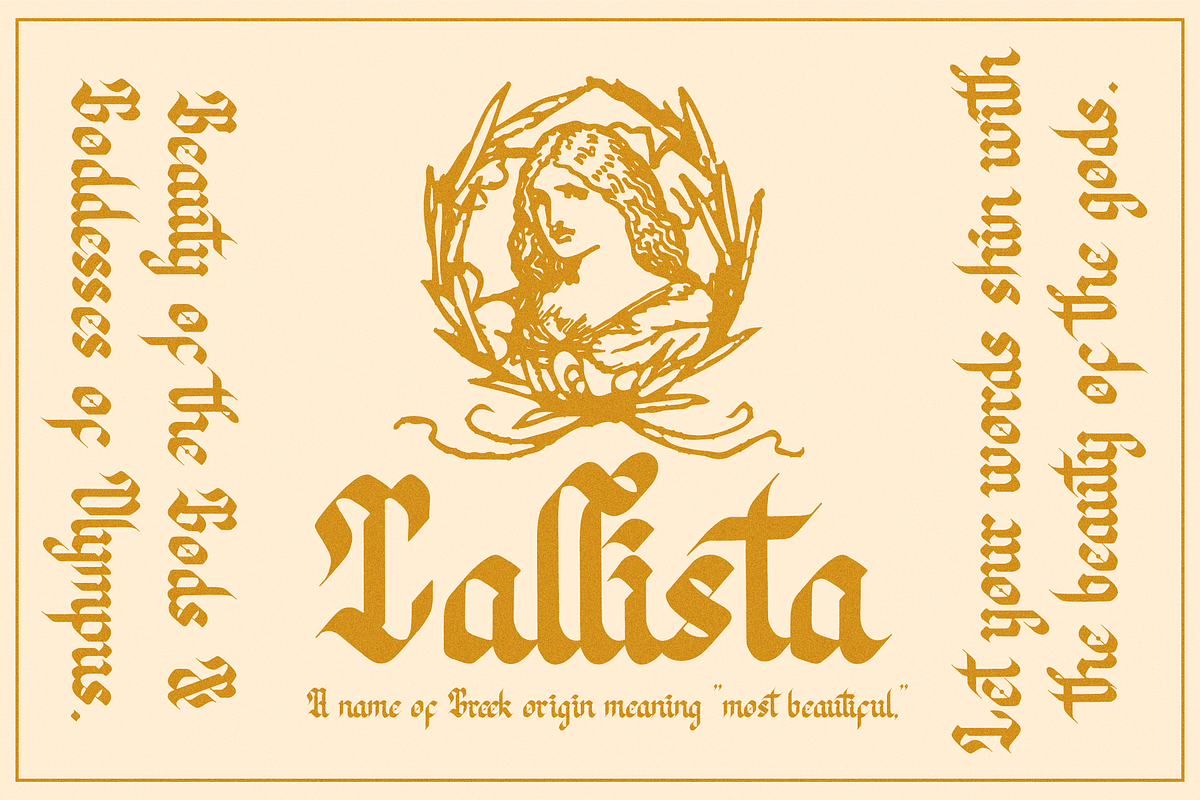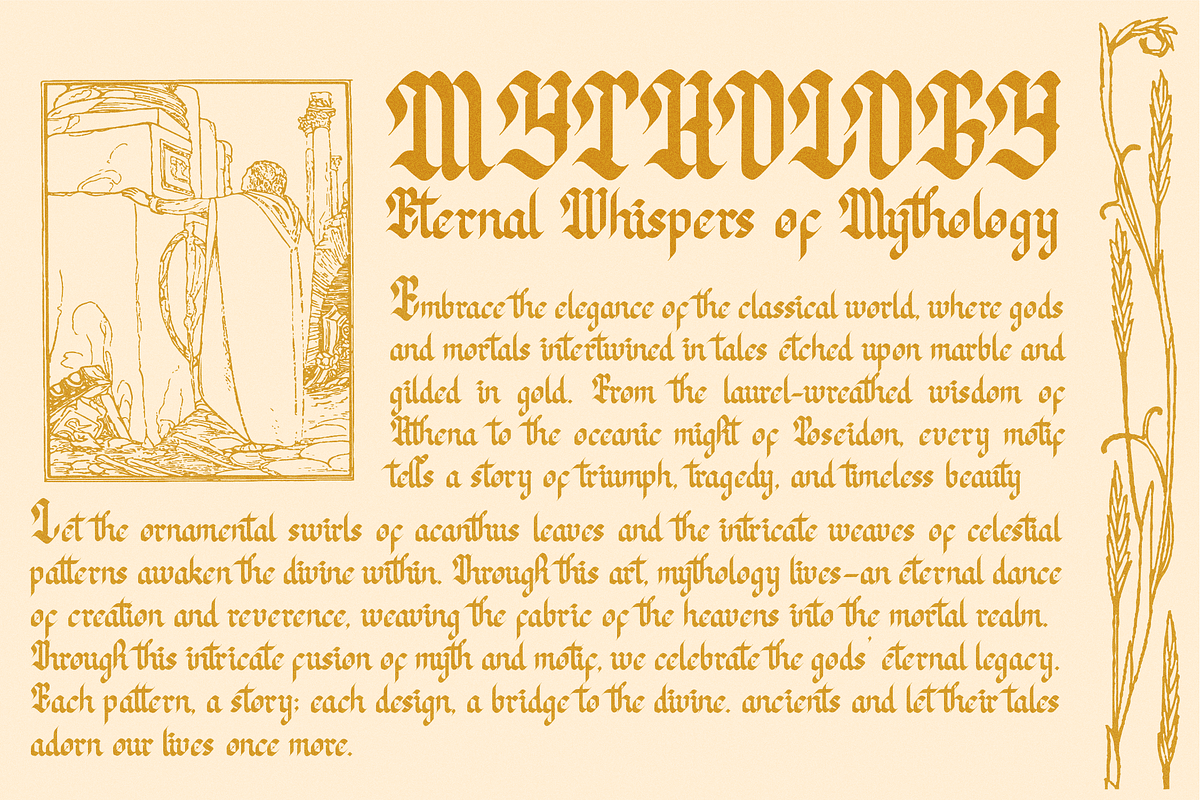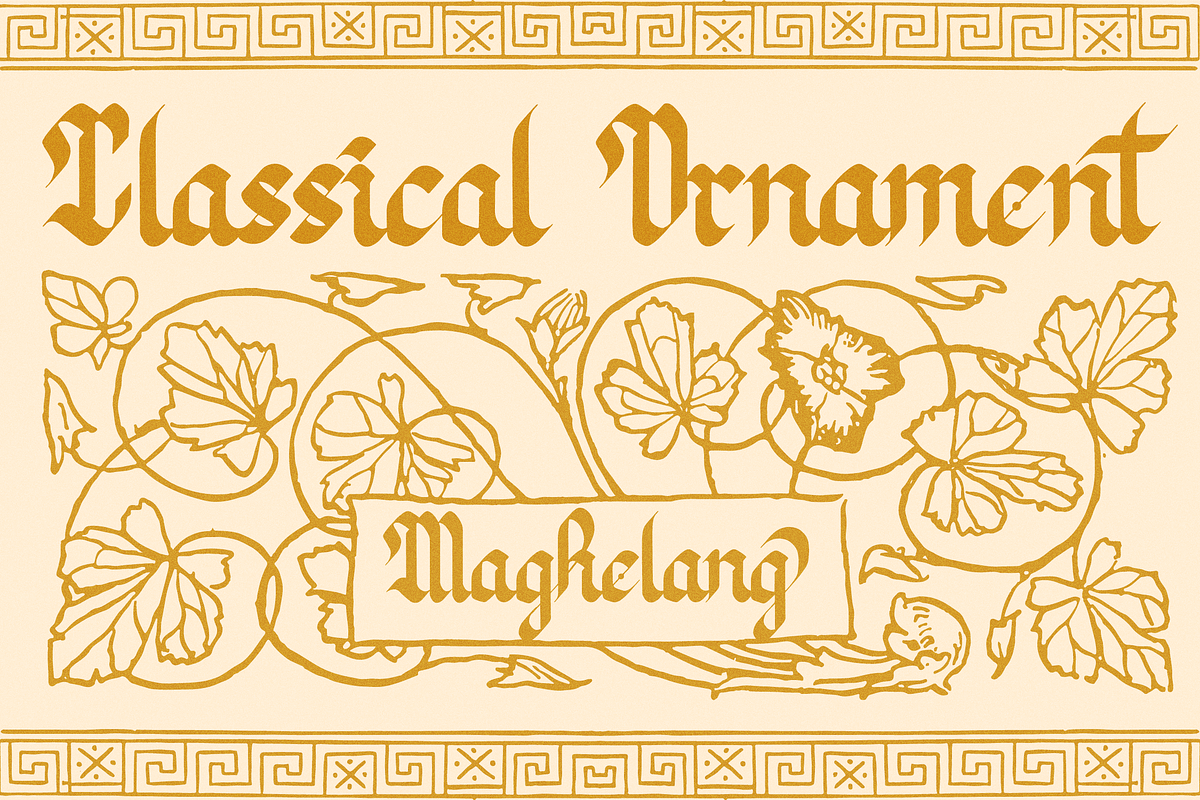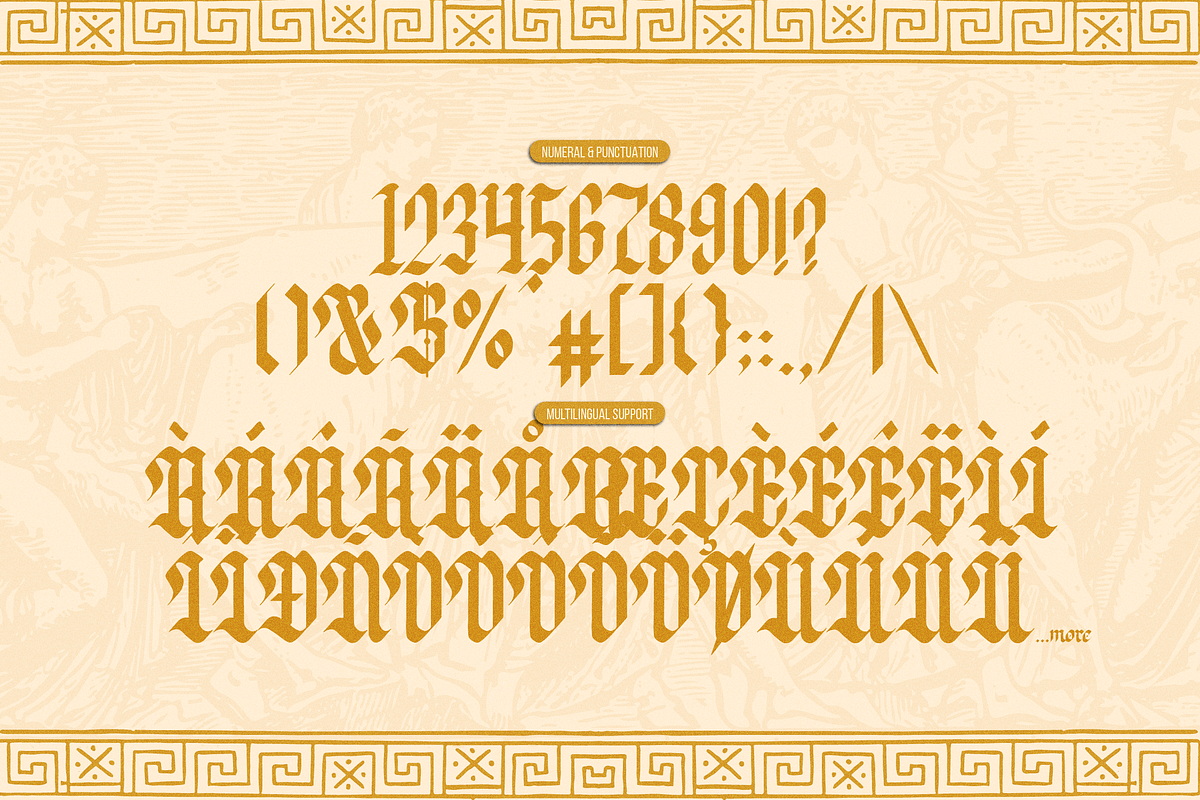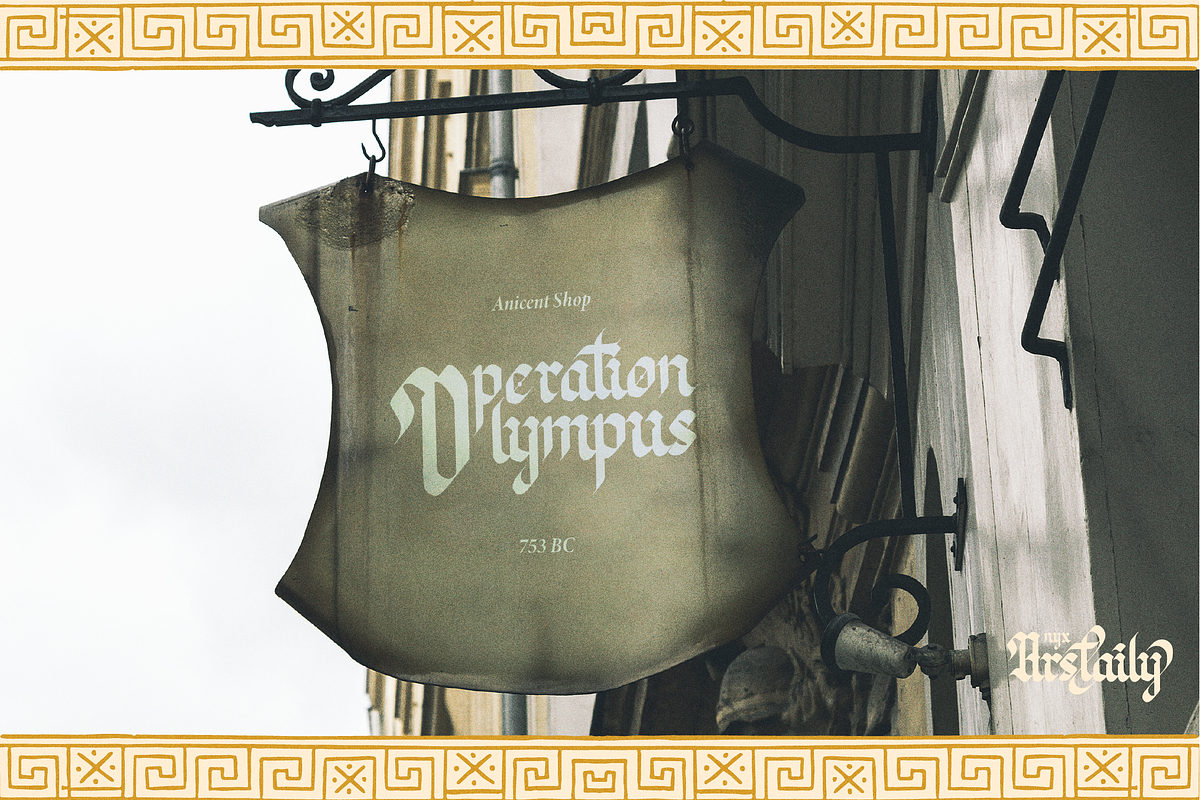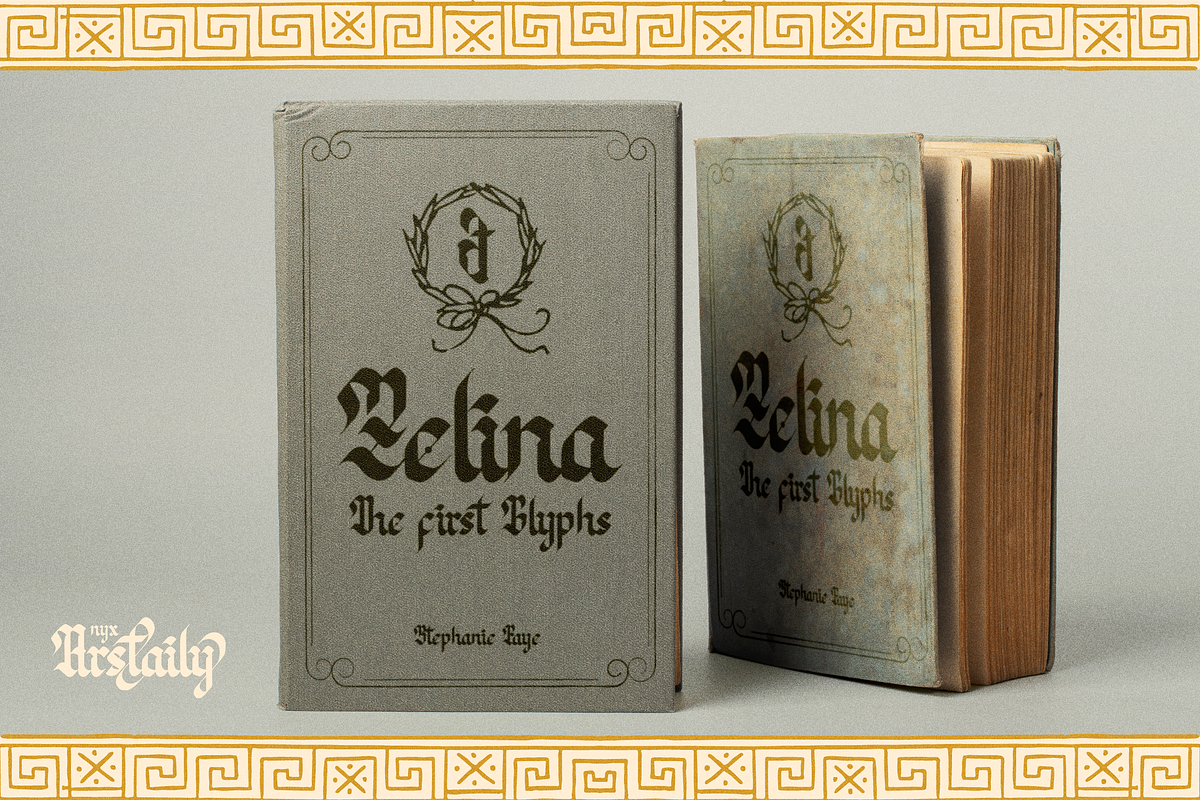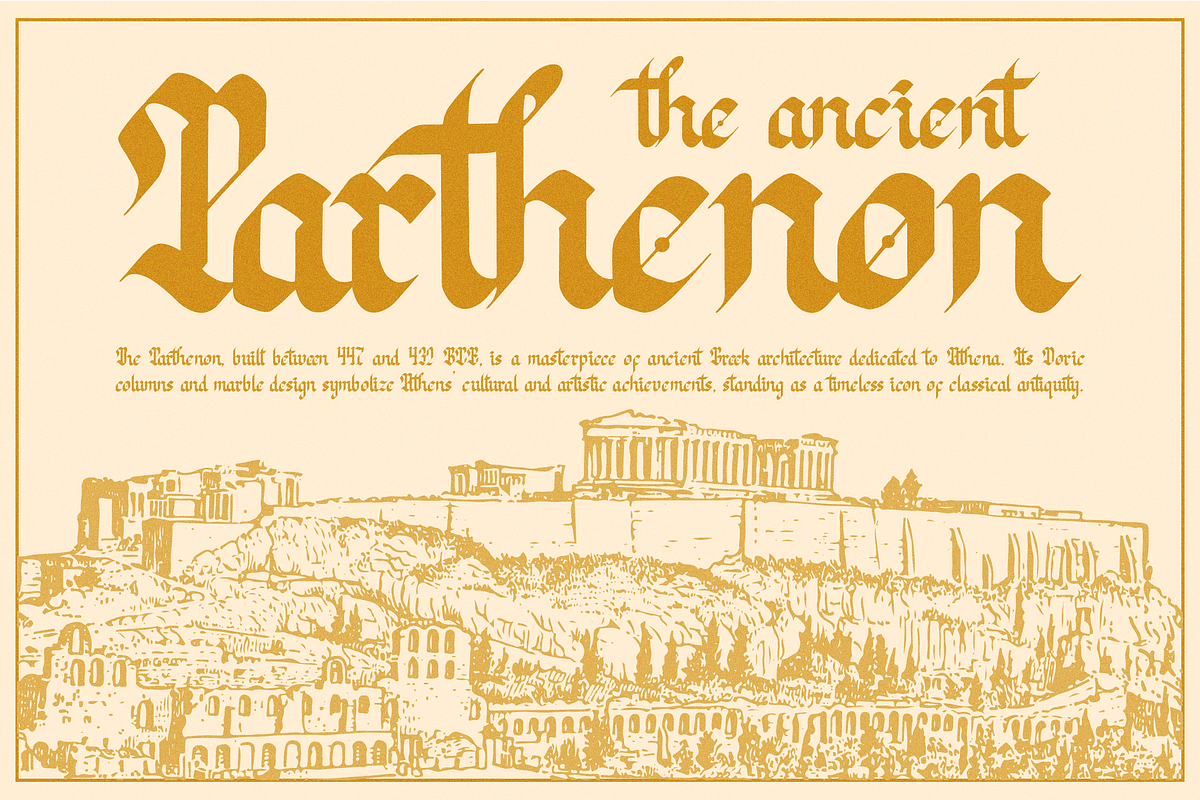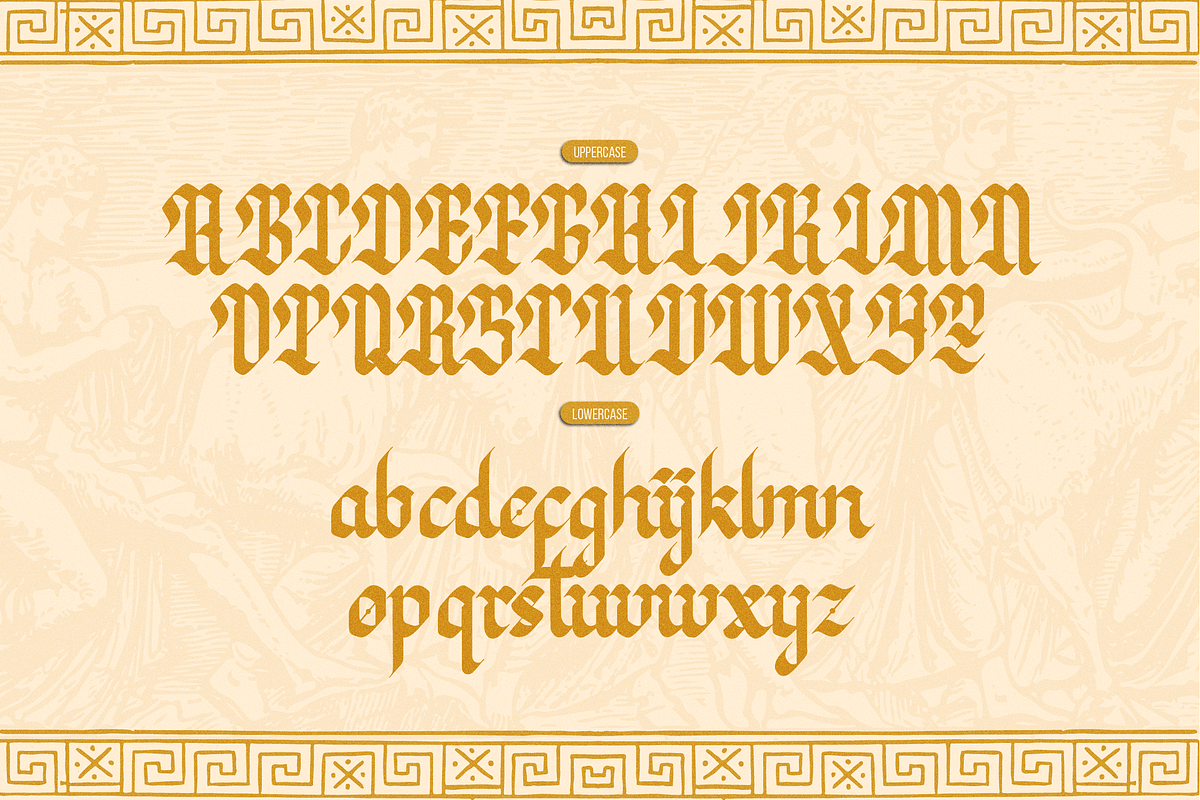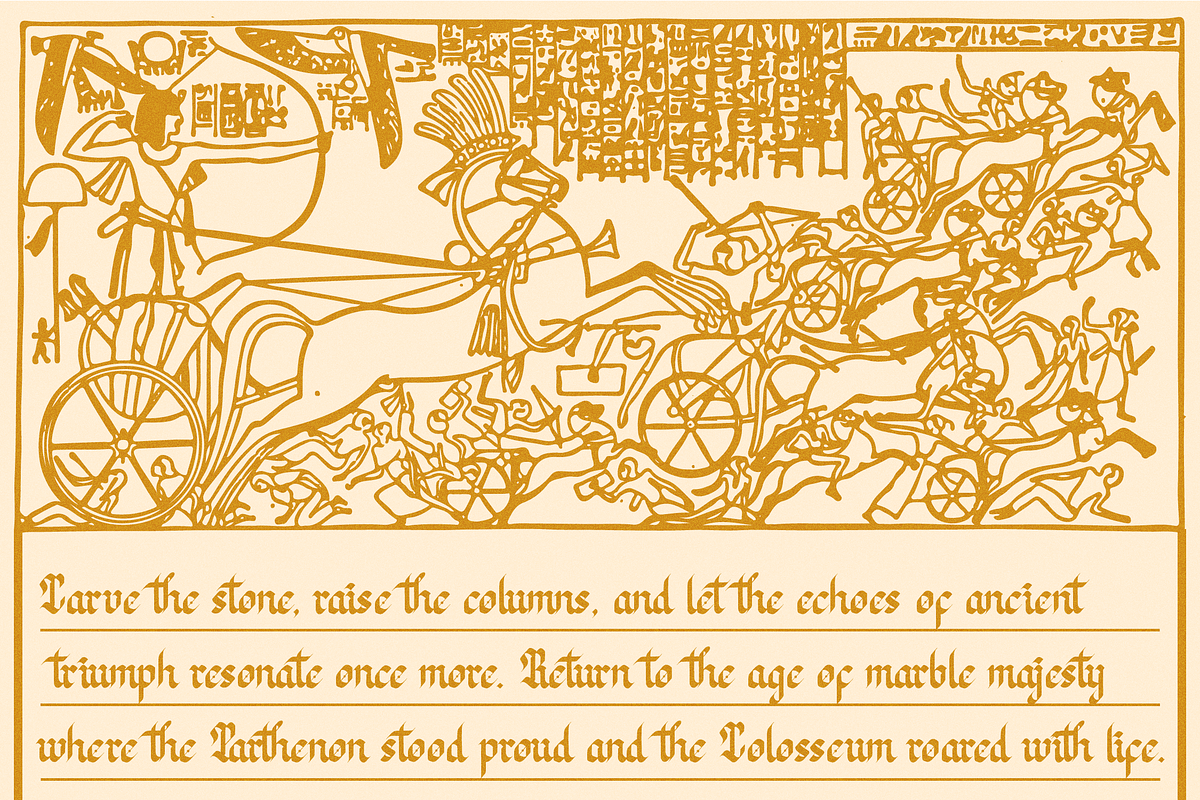
Nyx Arstaily | Blackletter Font
Nyx Arstaily | Blackletter Font, from Denustudios, suitable for any projects such as: logos, branding projects, homeware designs, product packaging, mugs, quotes, posters, shopping bags, t-shirts, book covers, name card, invitation cards, greeting cards, label, photography, watermark, special events, and all your other lovely projects that need a Blackletter Font taste.